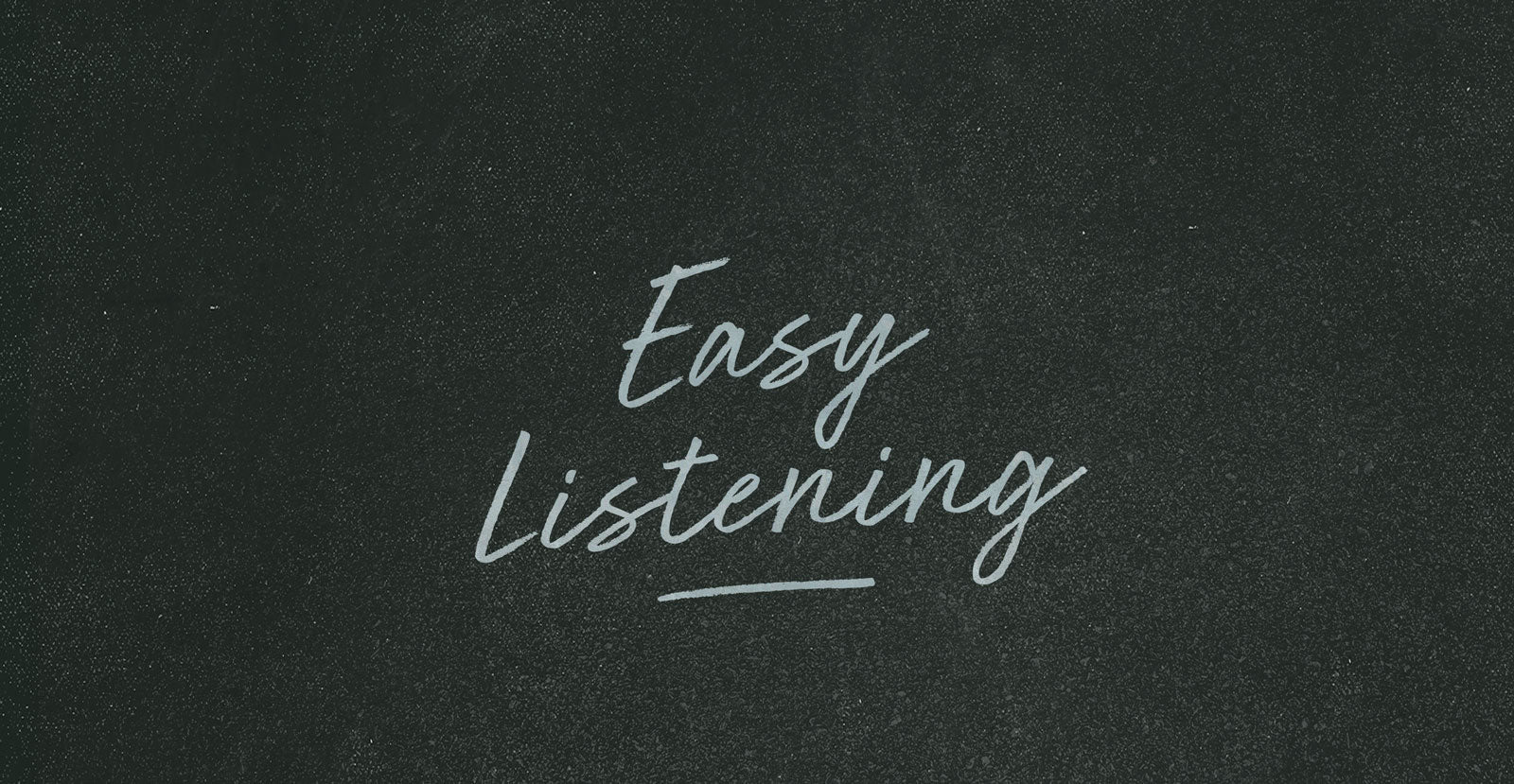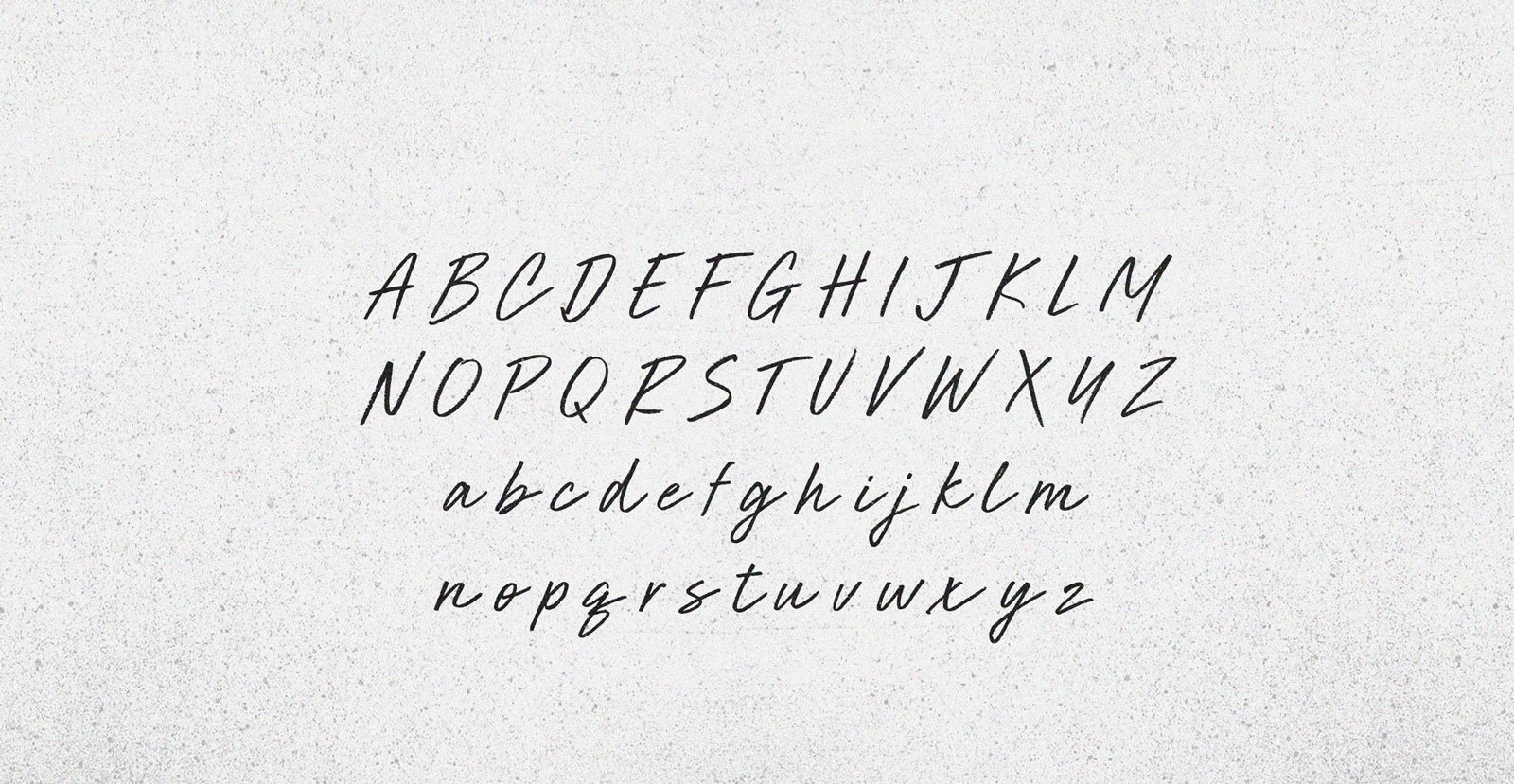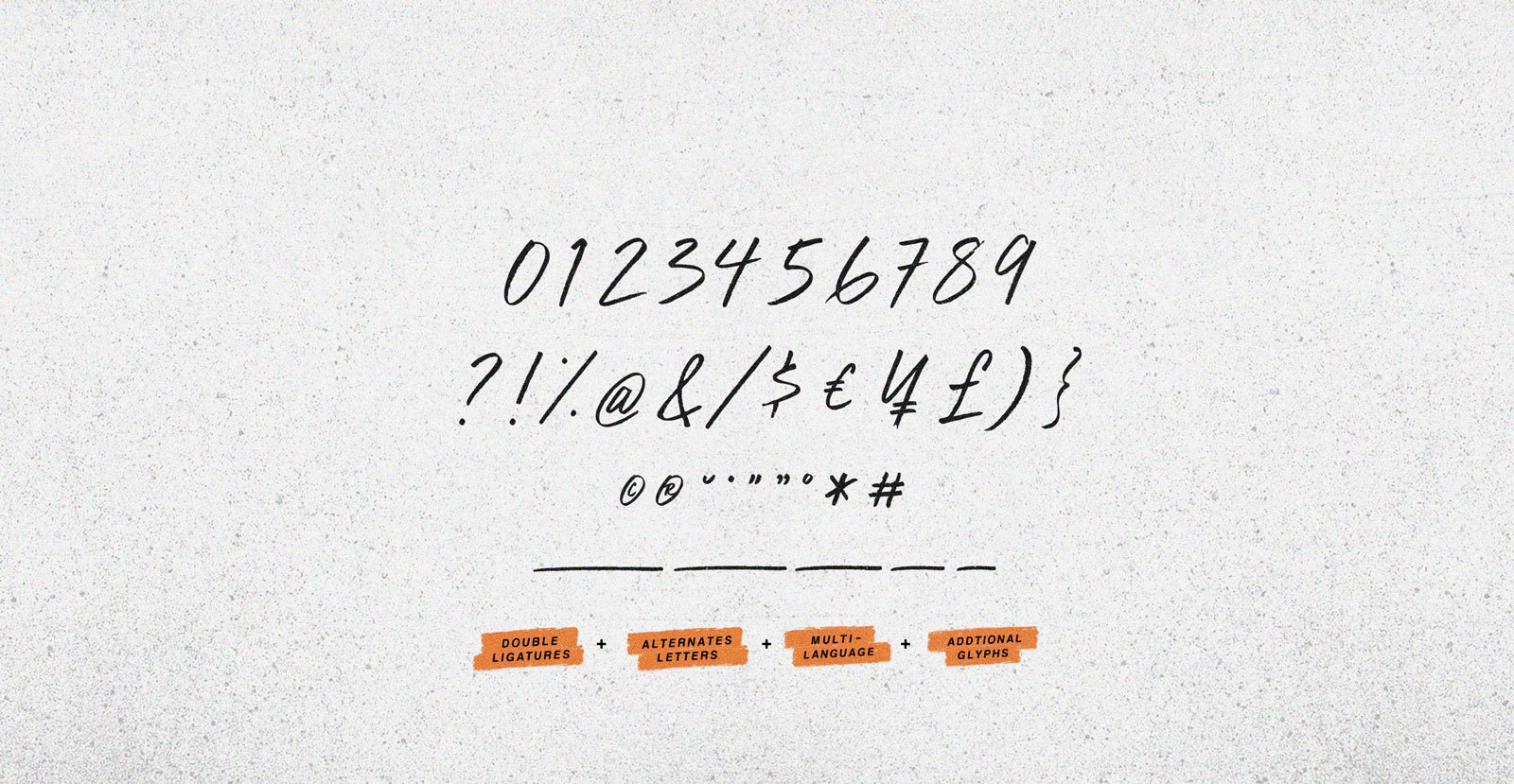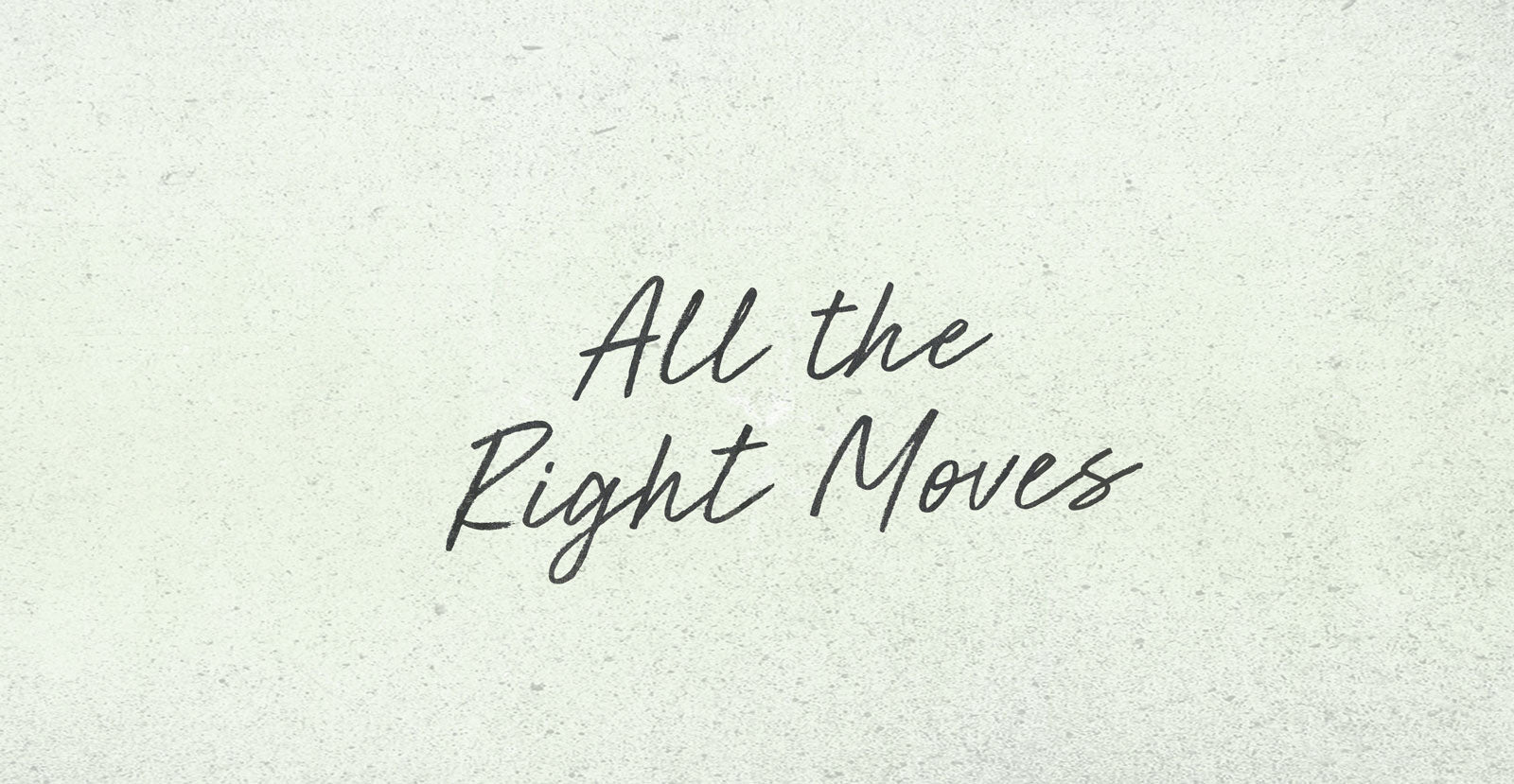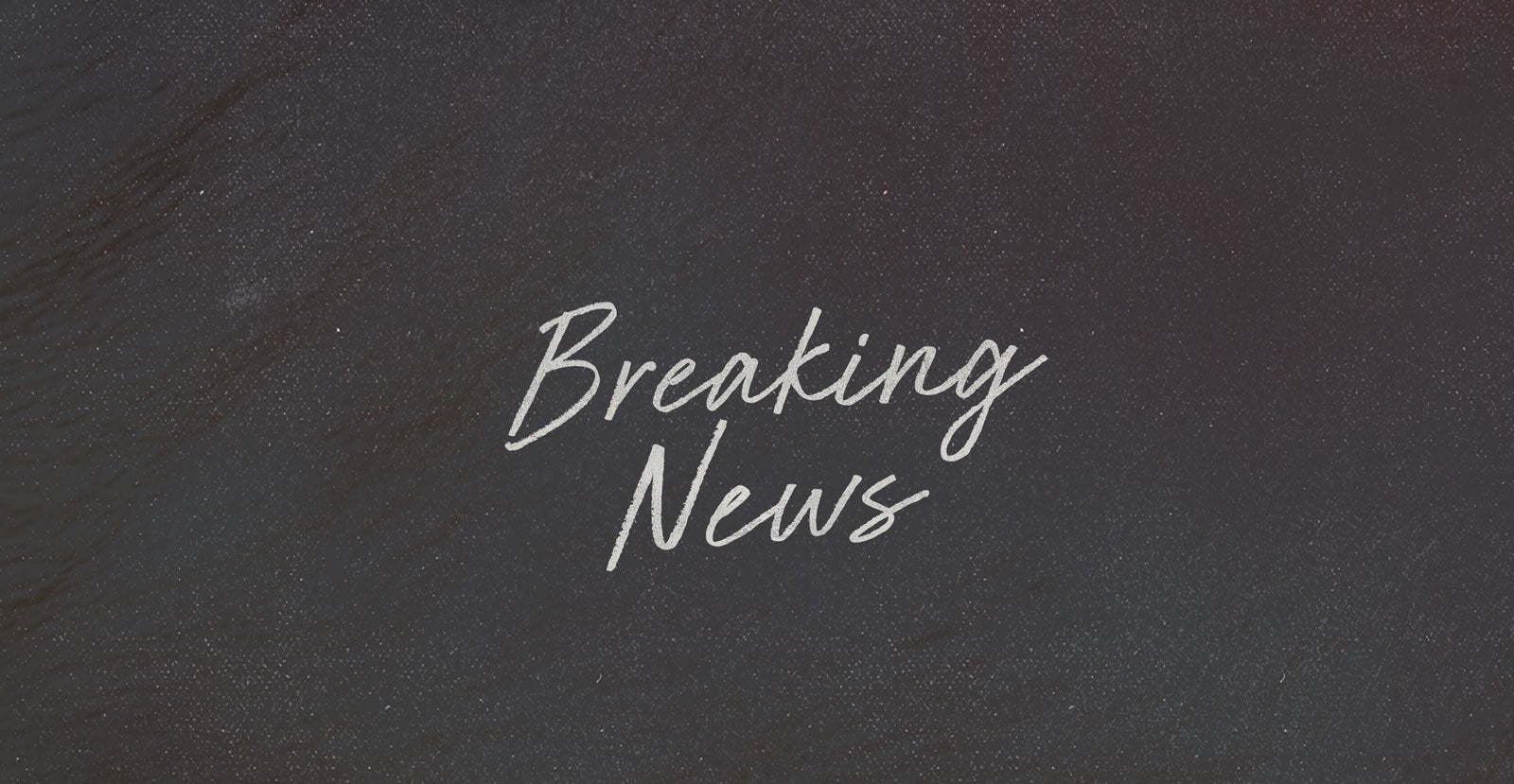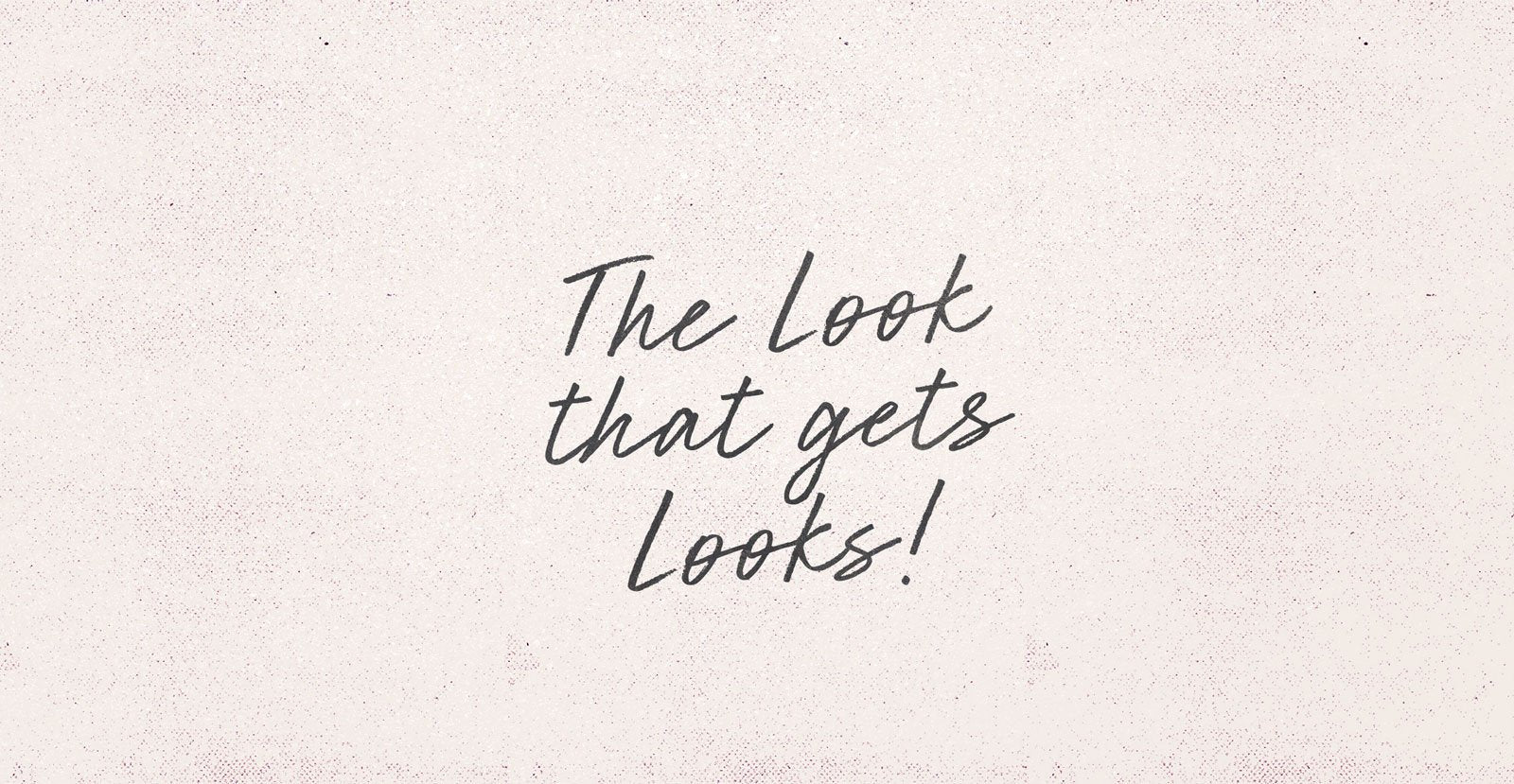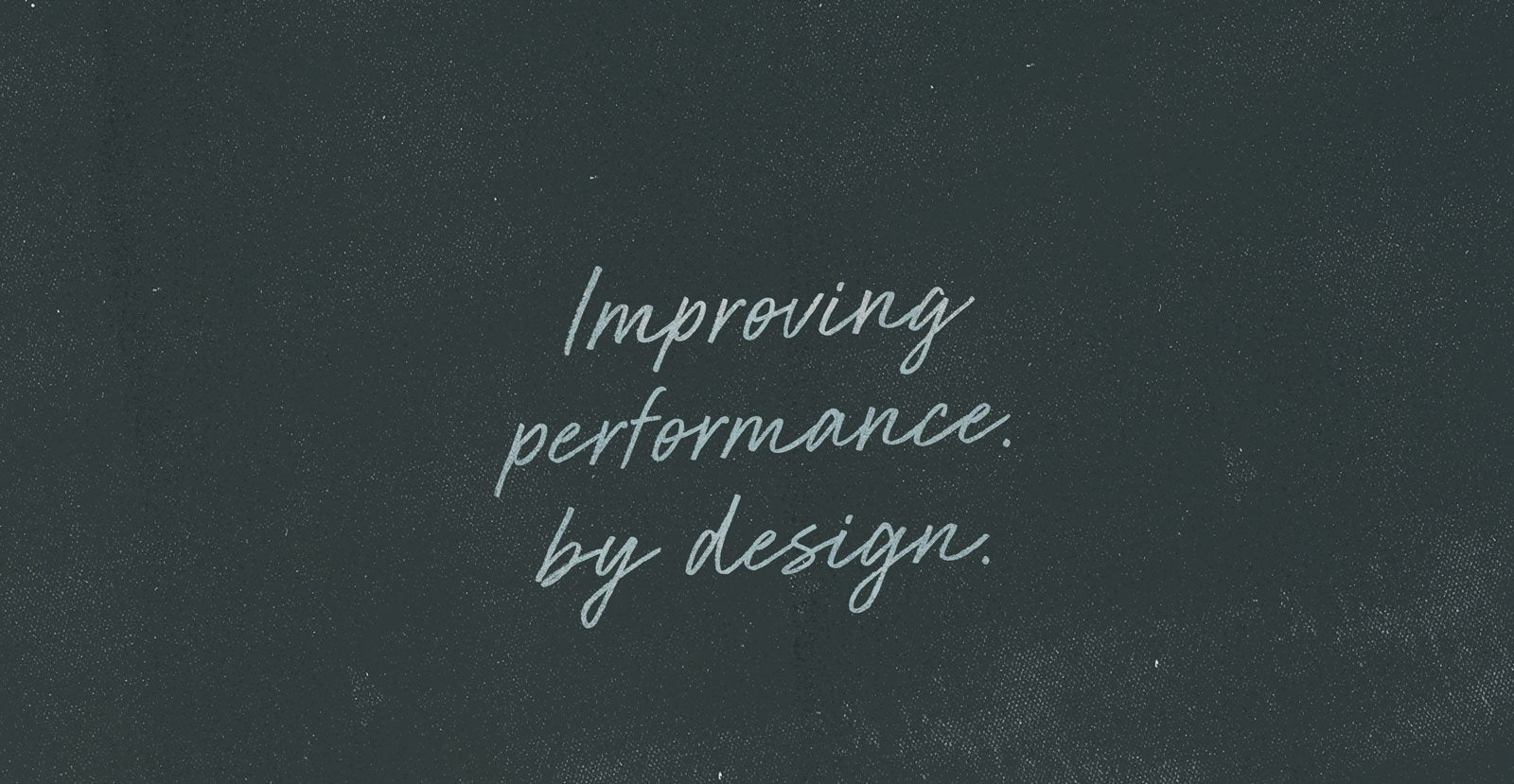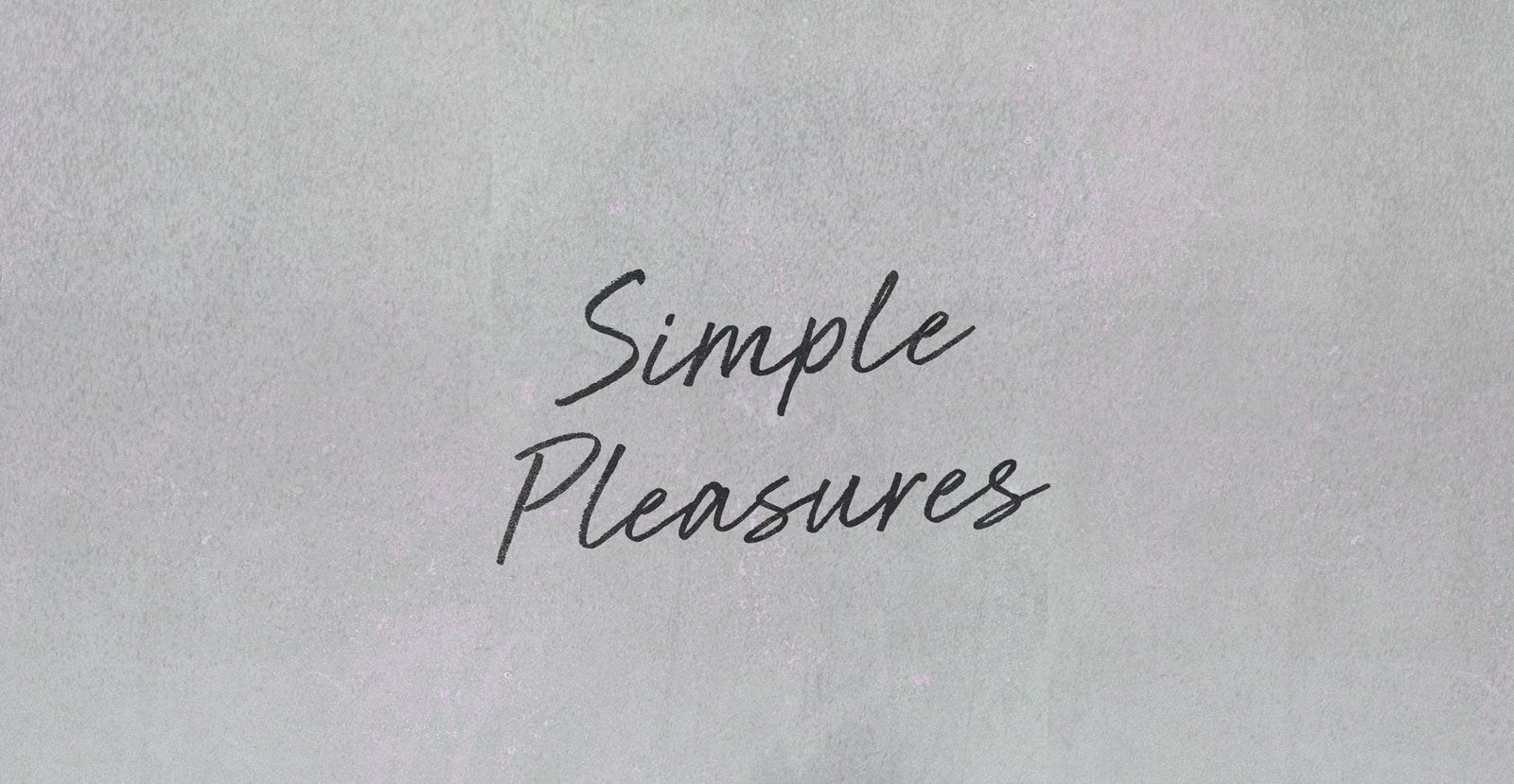
Easy Listening
From the middle of the middle, layered between the nougat and the caramel: spongy-soft- adult-mood Easy Listening. Neither hammer, nor anvil; challenge, nor stress. Just ear worms under ear drums, glowing and growing.